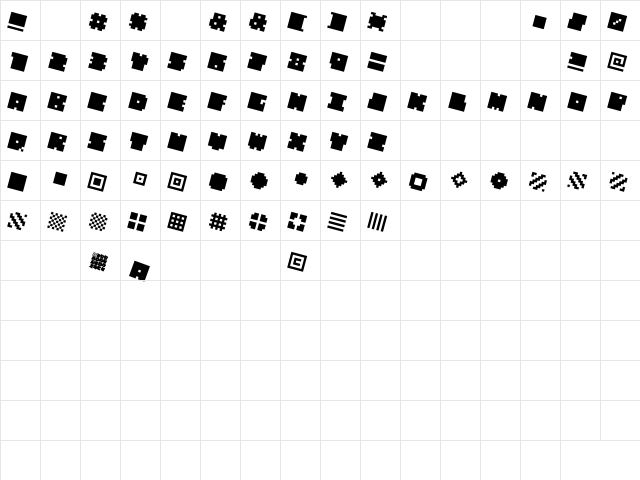
QUBE ITALIC
Design Context for QUBE Typeface
QUBE is a composed and adaptable typeface that performs quietly and consistently across a wide range of design contexts. The dynamic lean of this cut emphasises speed and emphasis in any layout.
Pro Tip: Use QUBE for emphasis, pull quotes, and subheadings where its slanted energy can add rhythm to the layout.